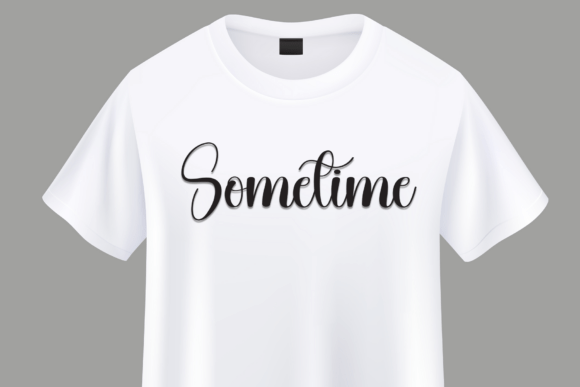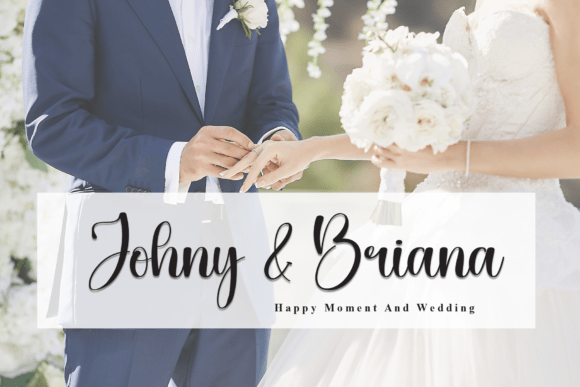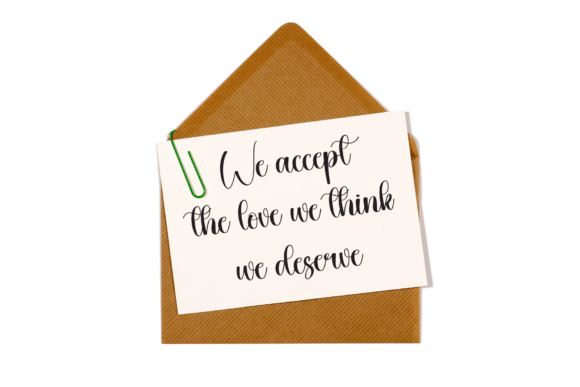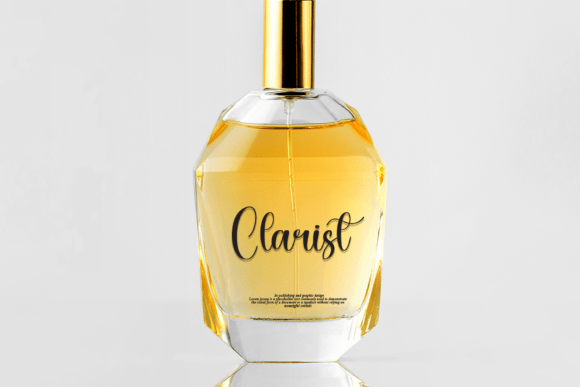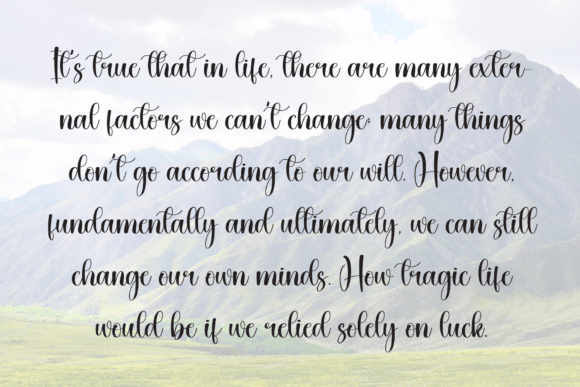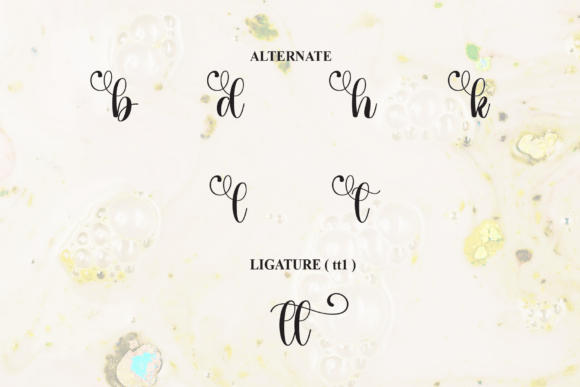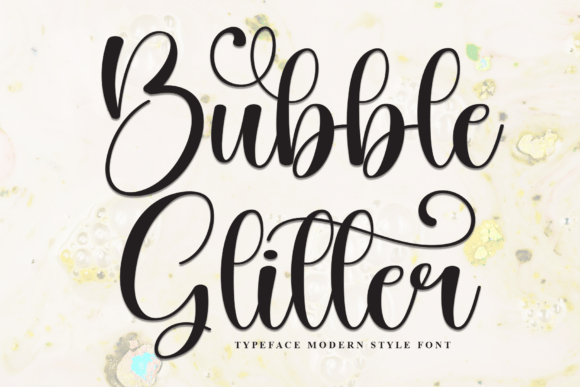
Bubble Glitter Font: Elevate Your Designs with Elegance and Whimsy
Are you looking for a font that combines modern sophistication with playful charm? Look no further than the Bubble Glitter font, a beautiful and expressive handwritten script font that is sure to elevate your designs. With its smooth, flowing strokes and delicate curves, Bubble Glitter evokes a sense of movement and grace, making it perfect for designs that aim to feel personal, romantic, or luxurious.
The Characteristics of Bubble Glitter Font
Bubble Glitter is more than just a font – it’s an experience. Its elegant and expressive handwritten script style is designed to bring a touch of whimsy and sophistication to your designs. The font features:
- Smooth, flowing strokes: The font’s smooth, flowing strokes give it a natural and fluid rhythm, making it perfect for designs that require a sense of movement and elegance.
- Delicate curves: The delicate curves and subtle nuances of the font add a touch of sophistication and whimsy, making it perfect for designs that require a personal touch.
- Stylish alternates and sweeping ligatures: The font’s stylish alternates and sweeping ligatures enhance its handwritten appeal, creating a natural and fluid rhythm in every word.
Uses for Bubble Glitter Font
Bubble Glitter is a versatile font that can be used in a variety of creative projects, including:
- Wedding invitations: The font’s elegant and romantic style makes it perfect for wedding invitations, adding a touch of sophistication and whimsy to your designs.
- Product packaging: The font’s modern and playful style makes it perfect for product packaging, adding a touch of personality and elegance to your designs.
- Quotes and social media graphics: The font’s expressive and elegant style makes it perfect for quotes and social media graphics, adding a touch of sophistication and whimsy to your designs.
- Branding: The font’s versatile and elegant style makes it perfect for branding, adding a touch of personality and sophistication to your designs.
Why Choose Bubble Glitter Font?
There are many reasons why you should choose Bubble Glitter font for your next creative project. Here are just a few:
- PUA-encoded: The font is PUA-encoded, allowing effortless access to all glyphs, swashes, and alternate characters.
- Versatile: The font is designed for versatility and elegance, making it perfect for a variety of creative projects.
- Elegant and whimsical: The font’s elegant and whimsical style makes it perfect for designs that require a touch of sophistication and personality.
Tips for Using Bubble Glitter Font
Here are a few tips for using Bubble Glitter font in your designs:
- Use it sparingly: The font’s elegant and whimsical style makes it perfect for use in headings and titles, but it can also be used in body text for added emphasis.
- Experiment with different colors: The font’s modern and playful style makes it perfect for use with a variety of colors, from bold and bright to soft and pastel.
- Pair it with other fonts: The font’s versatile style makes it perfect for pairing with other fonts, adding a touch of elegance and sophistication to your designs.
In conclusion, Bubble Glitter font is a beautiful and expressive handwritten script font that is sure to elevate your designs. With its smooth, flowing strokes and delicate curves, it’s perfect for designs that require a touch of elegance and whimsy. Whether you’re designing a wedding invitation, product packaging, or social media graphic, Bubble Glitter font is the perfect choice.